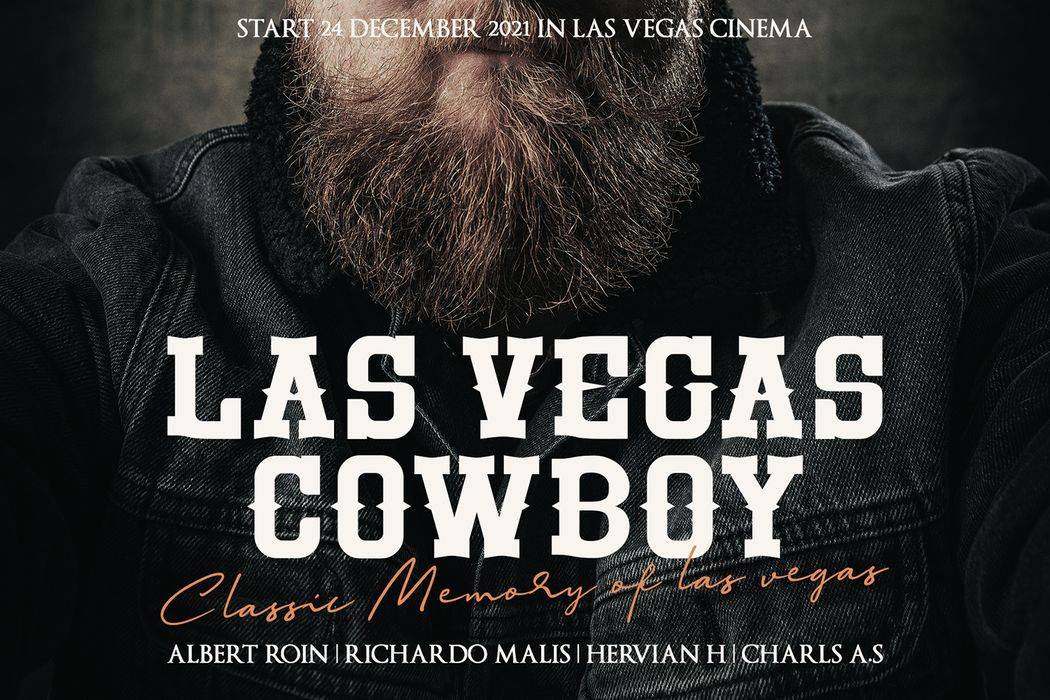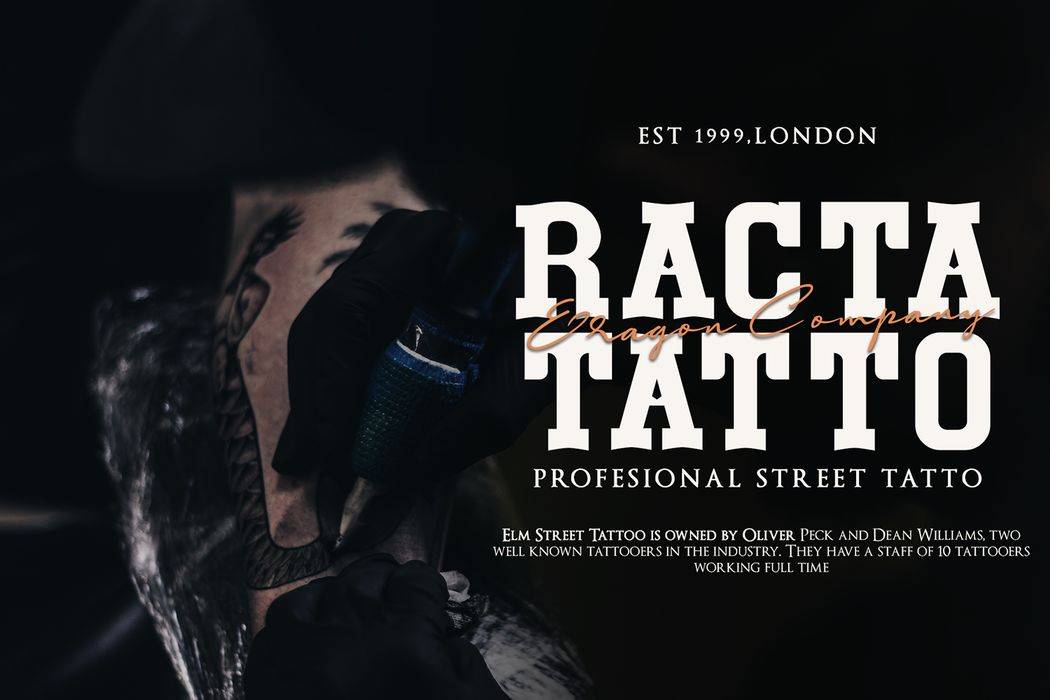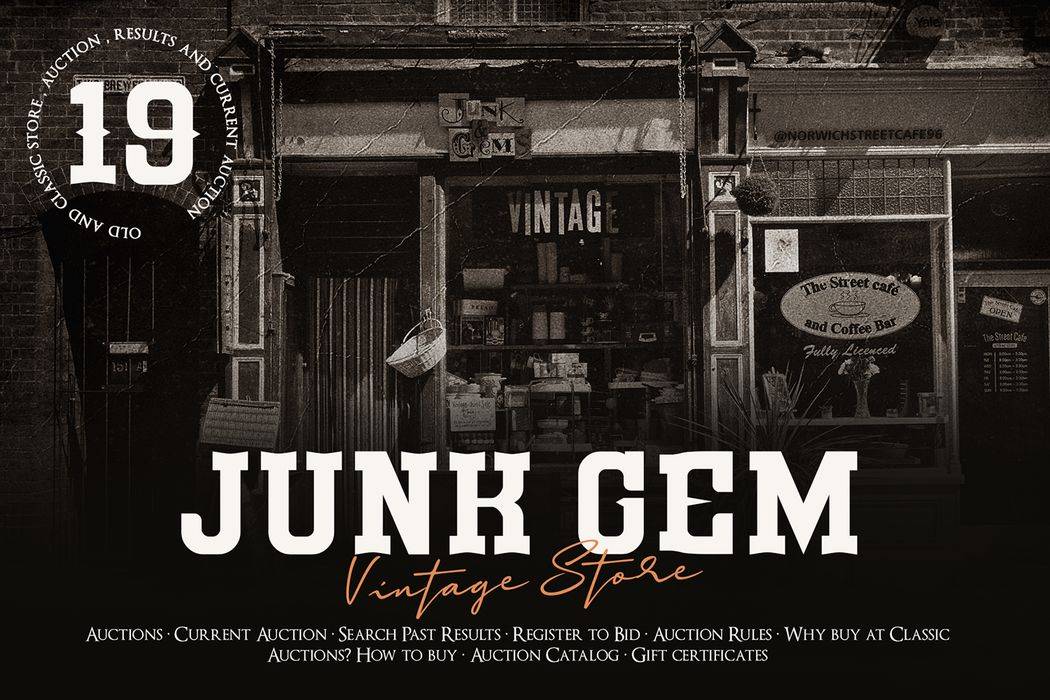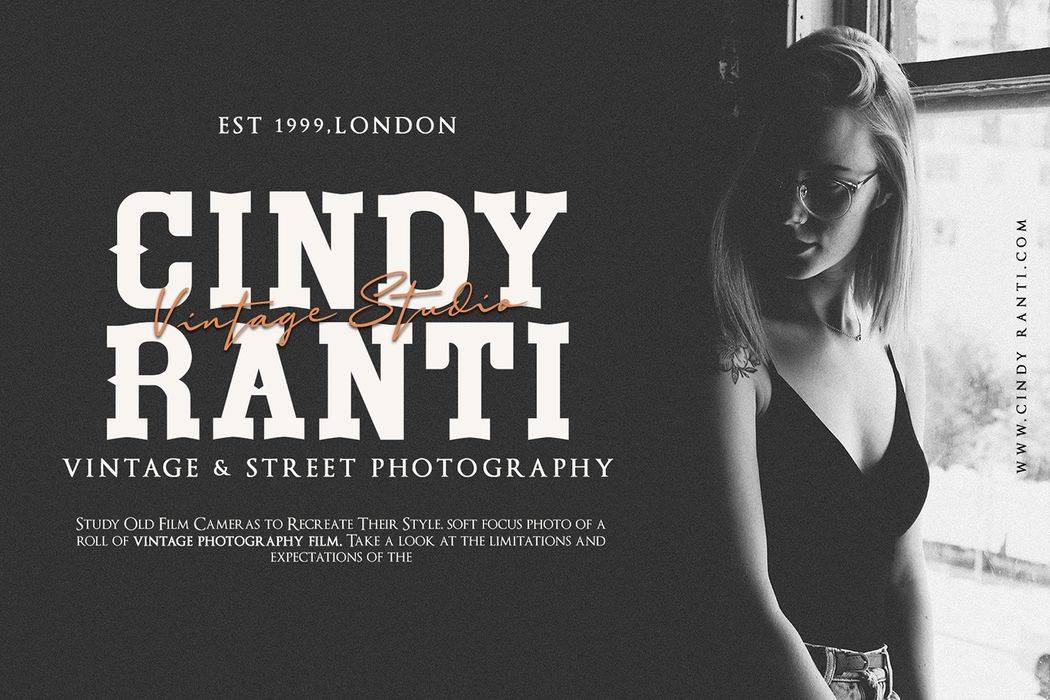
Glamour Wave is a bold slab serif font with a strong, condensed structure and distinctive notch details that give it a vintage, Western-inspired feel. Its high contrast between thick and thin strokes combined with the sharp, decorative terminals makes it perfect for creating eye-catching headlines, logos, and branding with a rugged yet stylish personality. This font works especially well in projects that want to convey strength, nostalgia, and a touch of flair.
Glamour Wave Font
About Glamour Wave Font
| Font family | Glamour Wave Font |